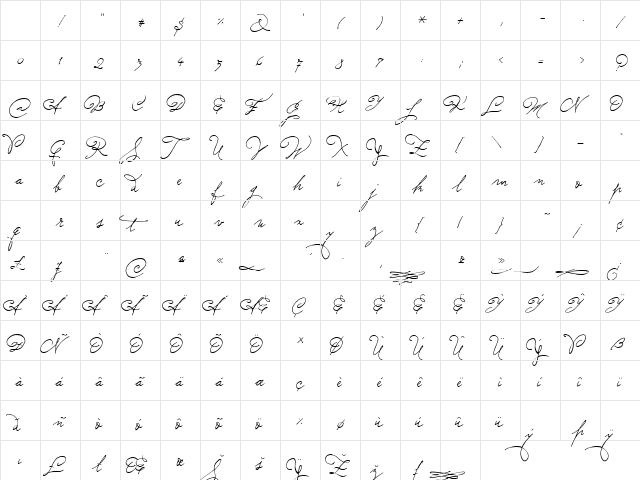
Sudestada Regular Free Font
Sudestada Regular
Design Context for Sudestada
Sudestada is a composed and adaptable typeface that performs quietly and consistently across a wide range of design contexts.
Pro Tip: Use Sudestada in both headline and body roles to test its range before committing to a single application.